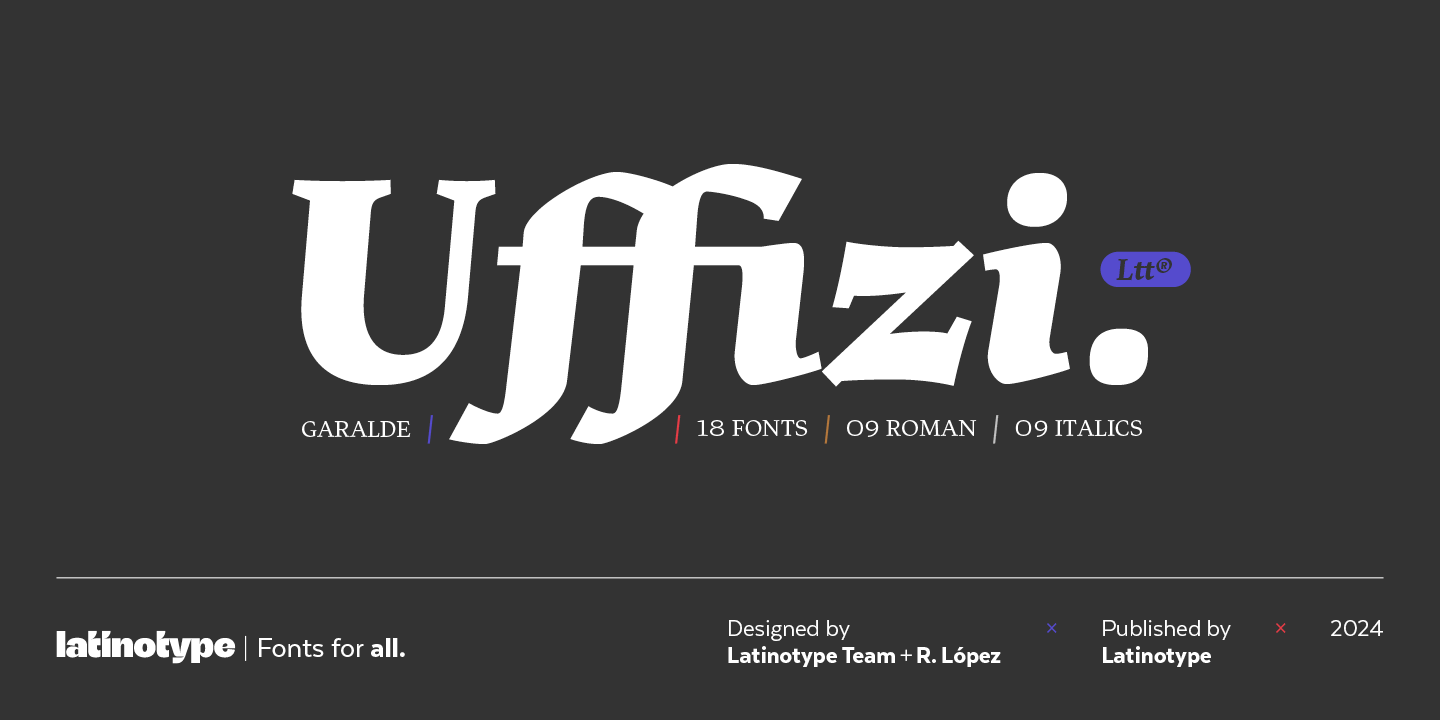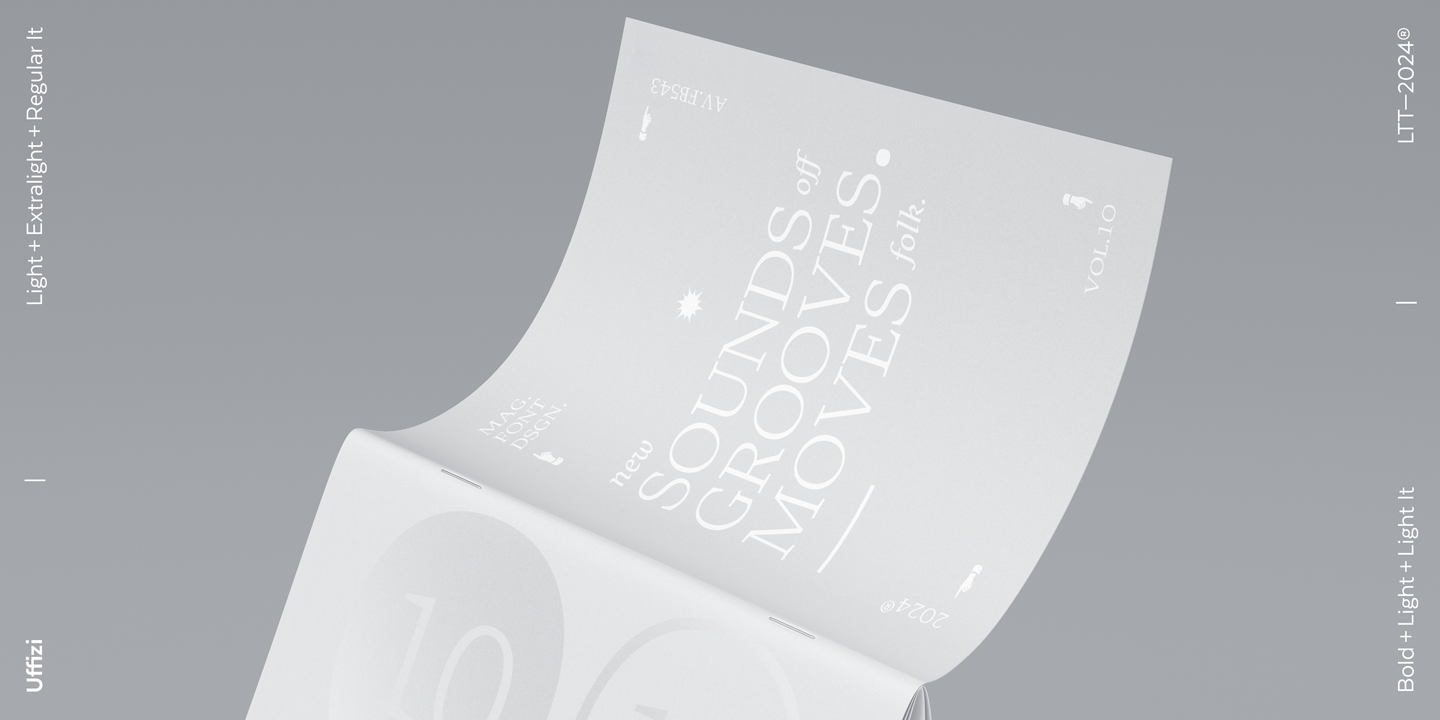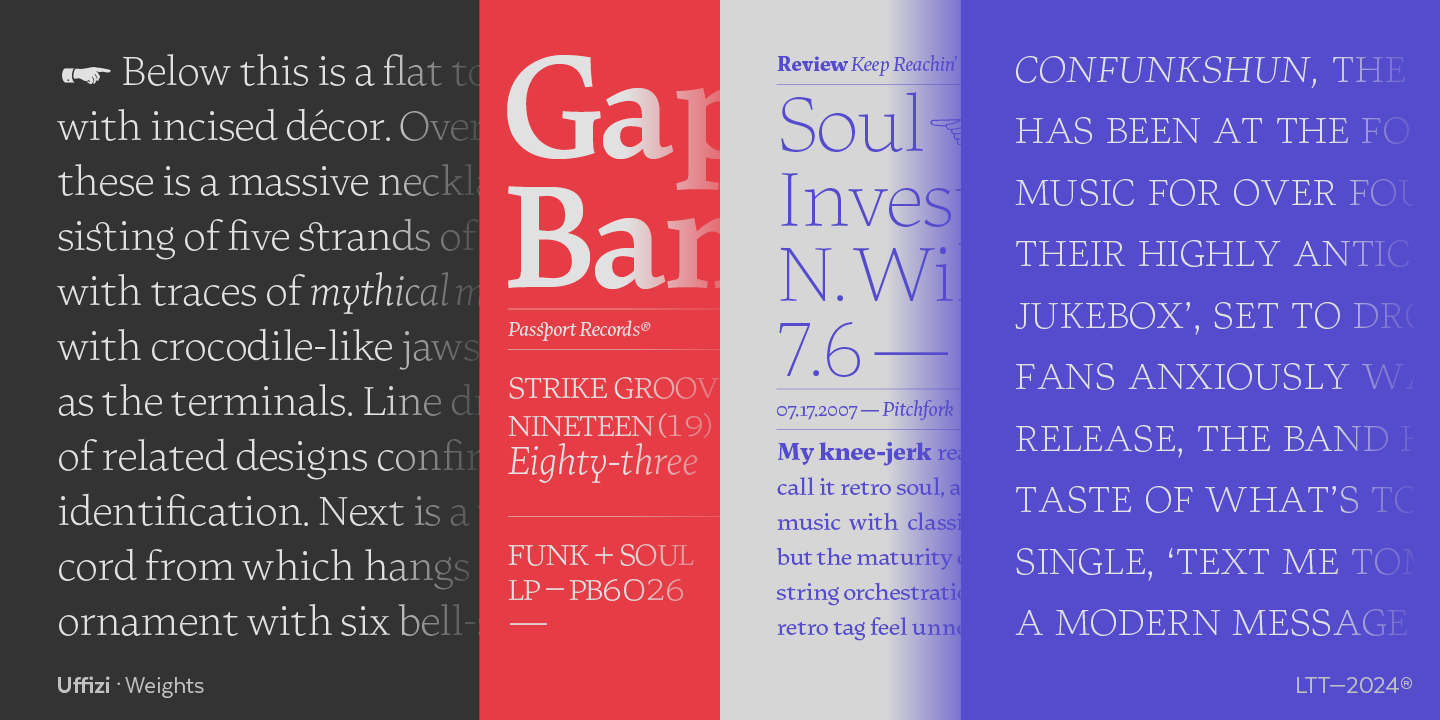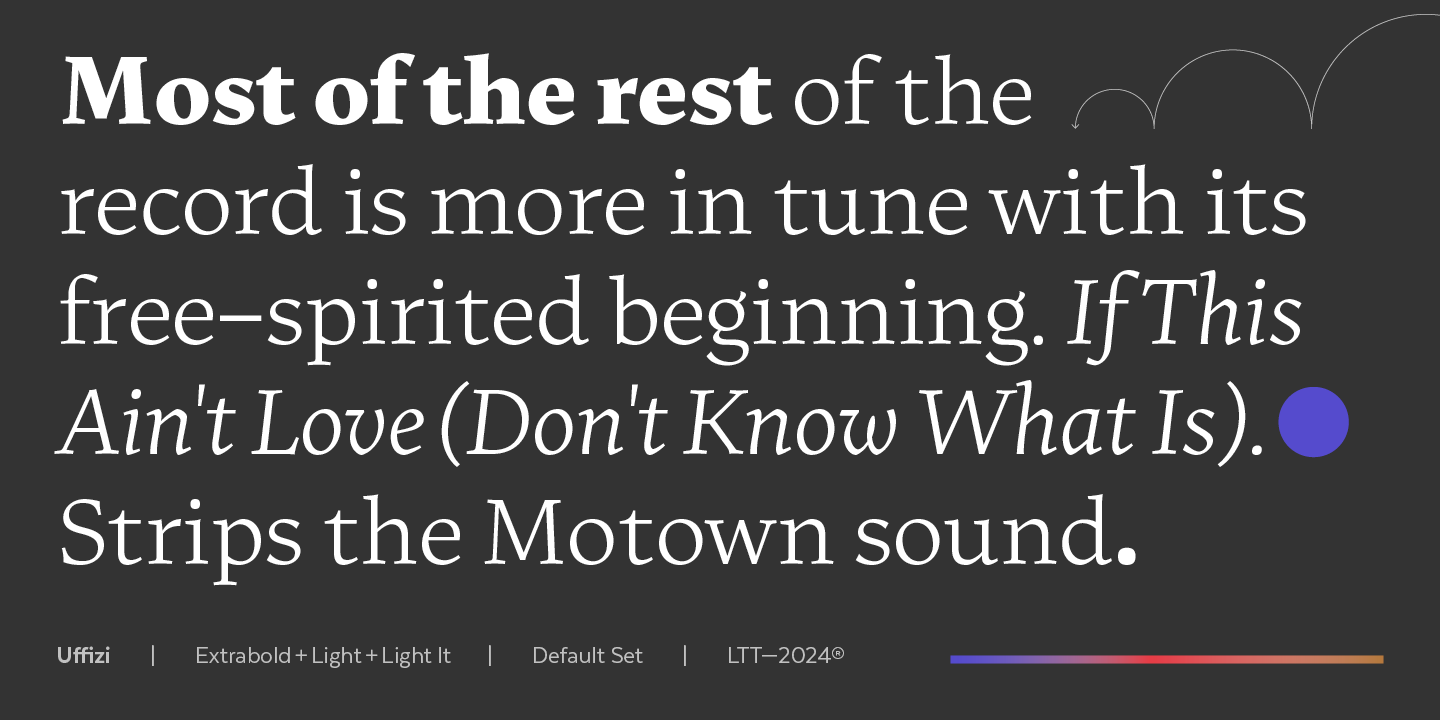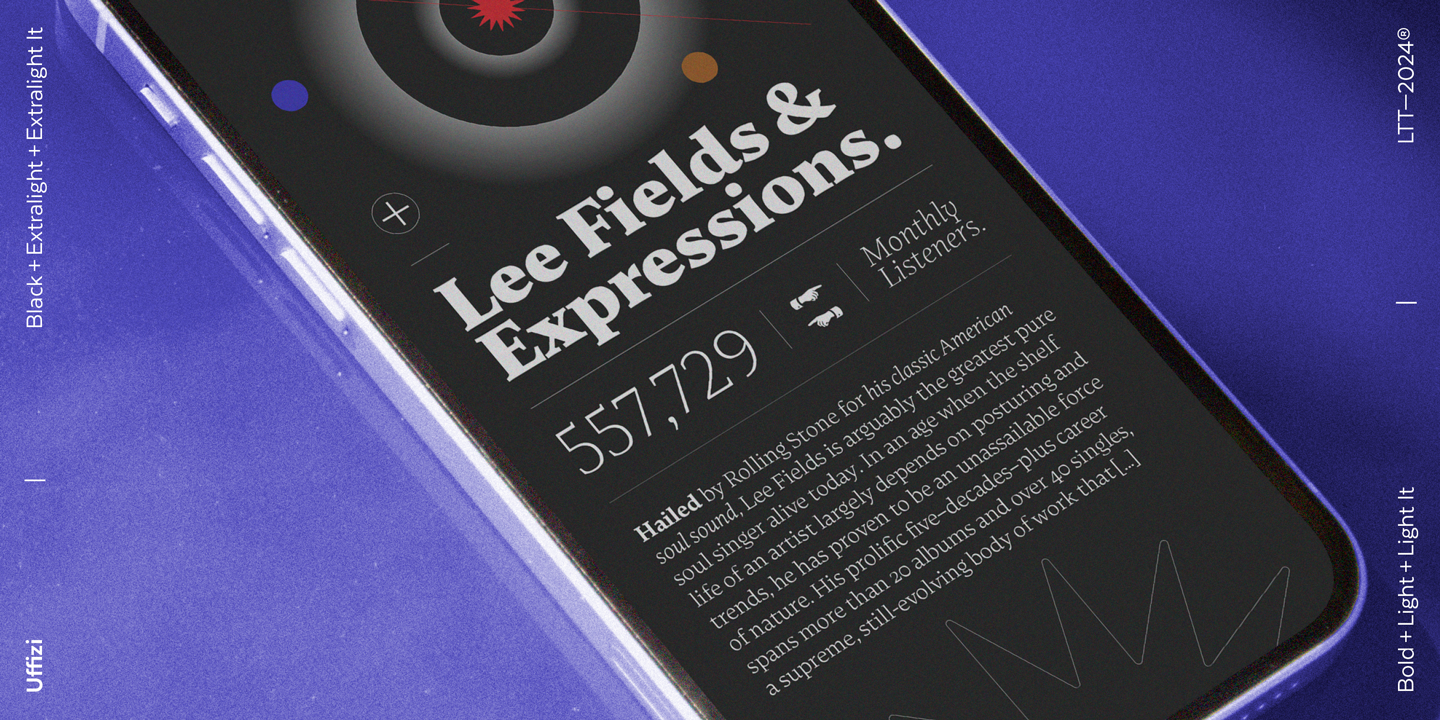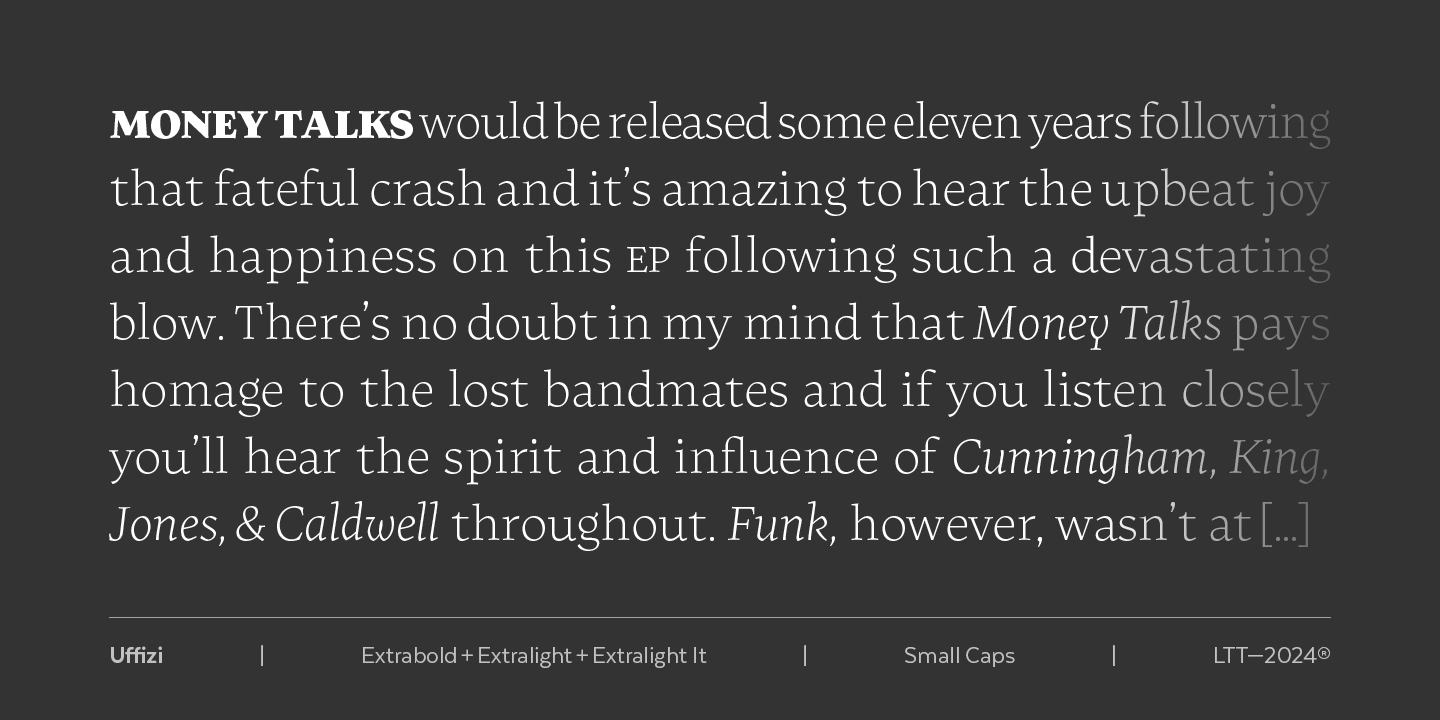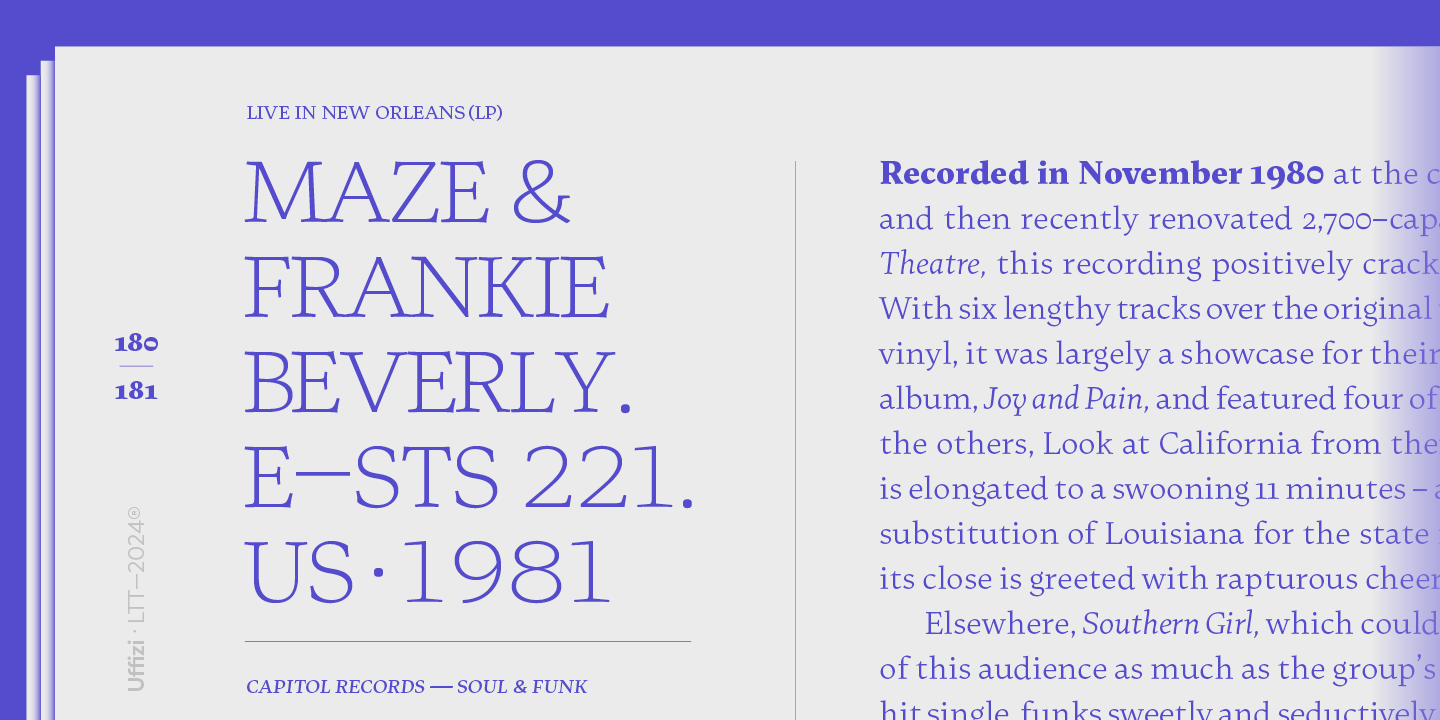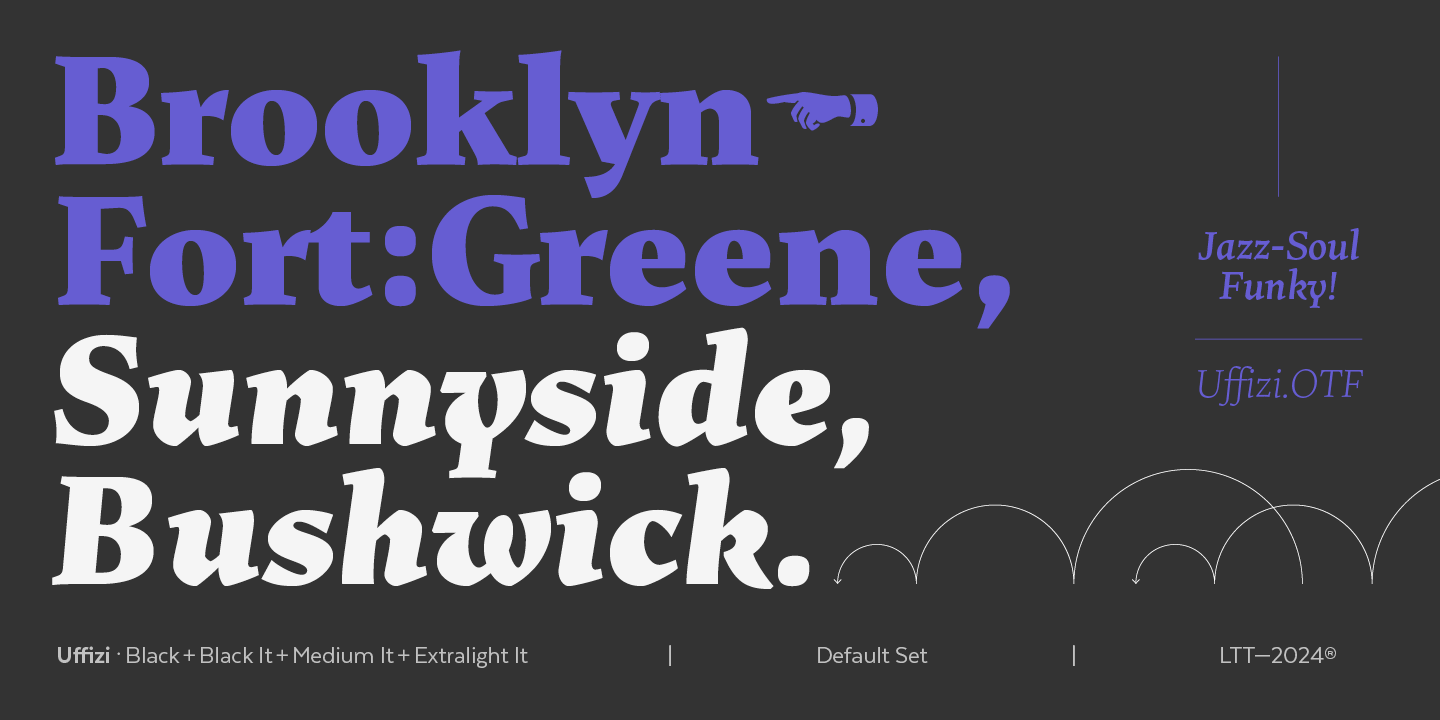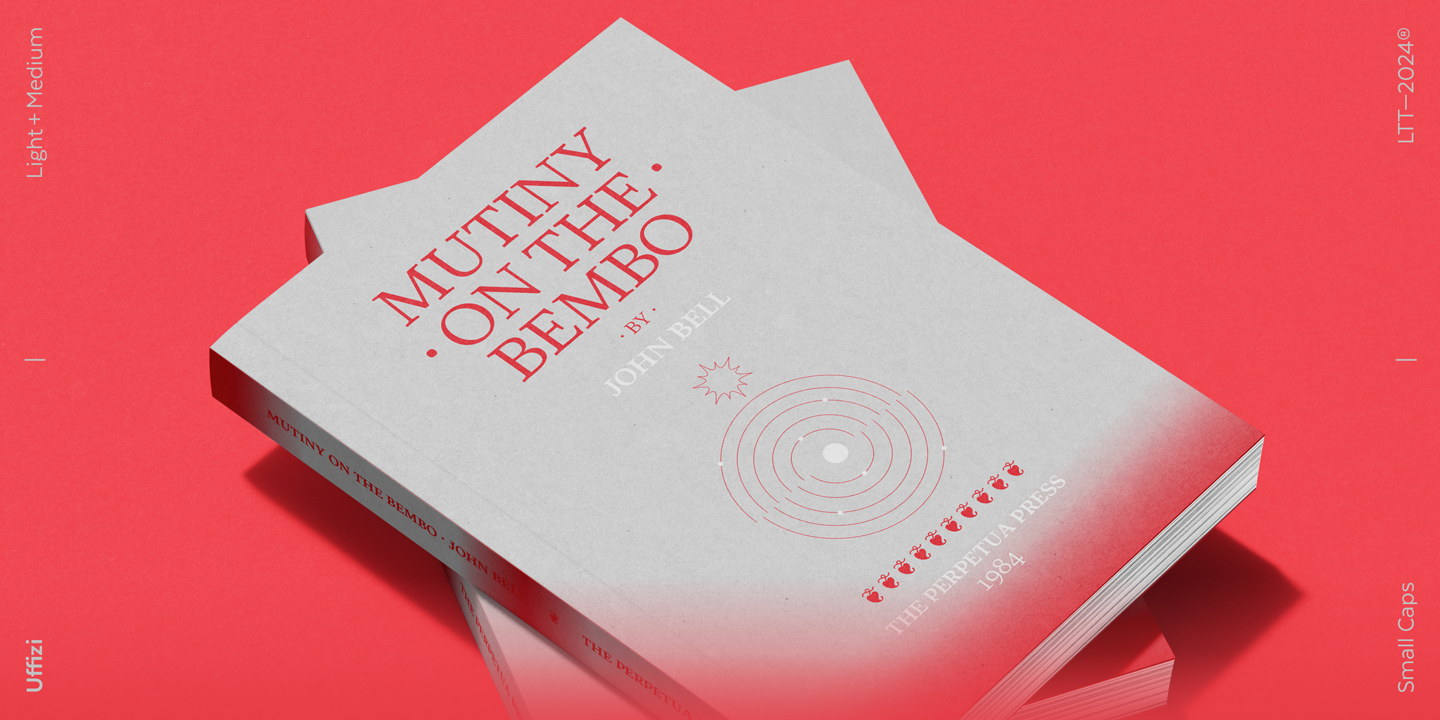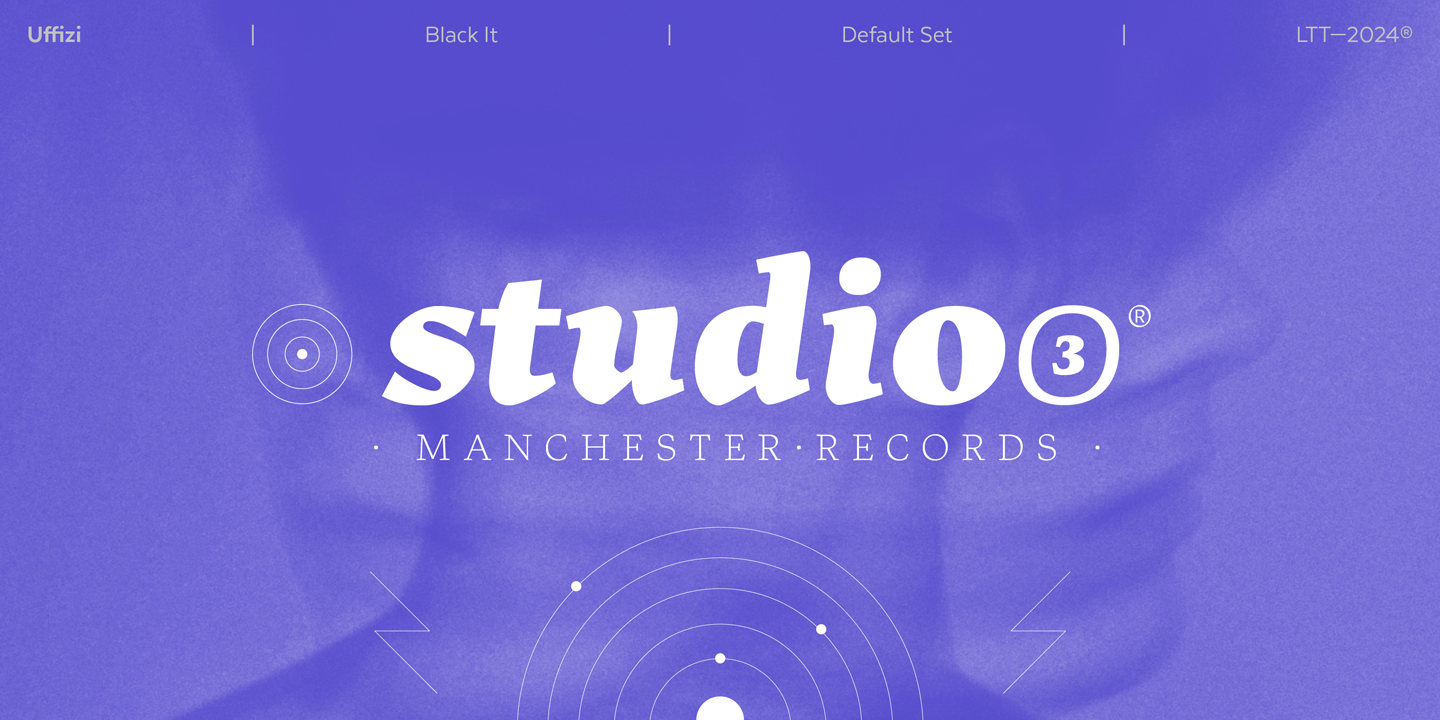
To meet today's typographic demands, Uffizi includes an extensive character set covering small caps, alternates, ligatures, old numbers and proportionals, all accompanied by their corresponding italic versions. This variety of characters allows Uffizi to adapt to different contexts and editorial needs, providing flexibility and adaptability in any design project.
The fusion of classic and contemporary makes it an ideal option for designers looking for a versatile typography with character.